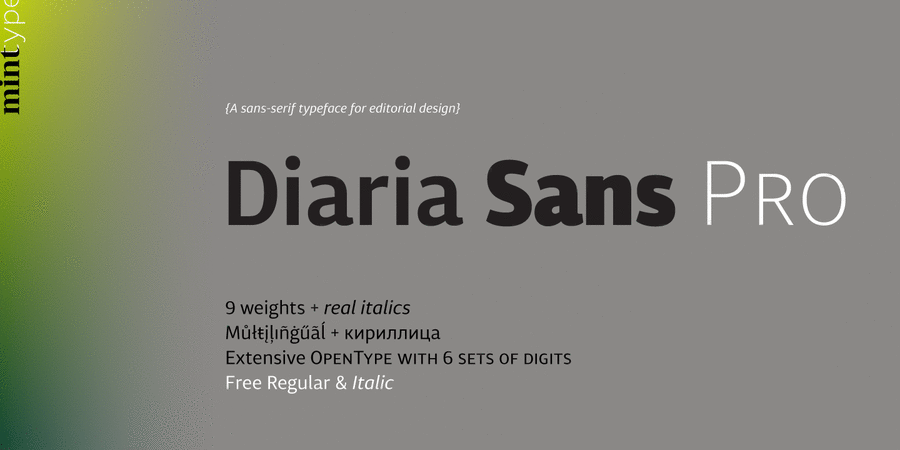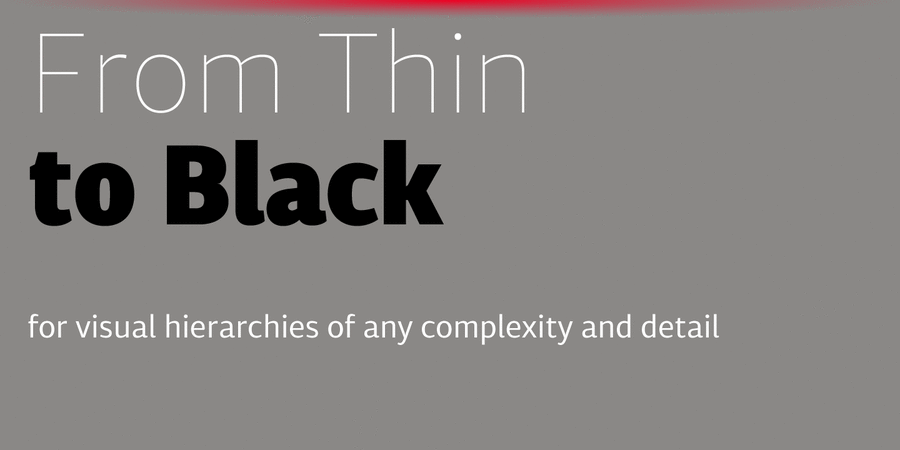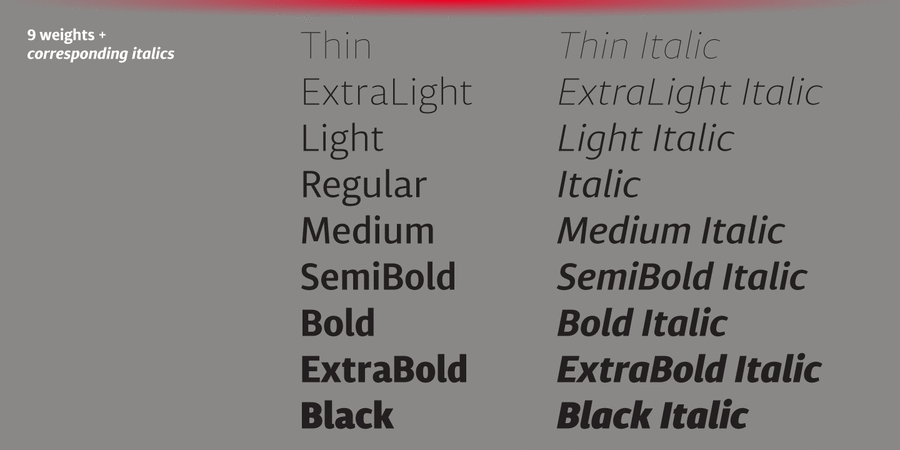
Diaria Sans Pro is a sans-serif counterpart of Diaria Pro. With its extensive 9 weights and corresponding italics, extensive language support, and various OpenType features it is meant to build visual hierarchies of any detail and complexity in editorial design.
This modern sans-serif typeface designed as a universally legible medium for both titles and paragraph text. Its large x-height and static exteriors allow comfortable reading in printed narrow columns as well as in screen graphics.
The typeface was designed and released by Andriy Konstantynov at Mint Type foundry in 2016.